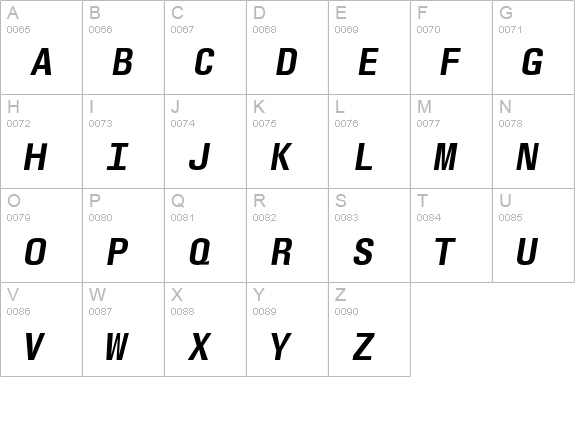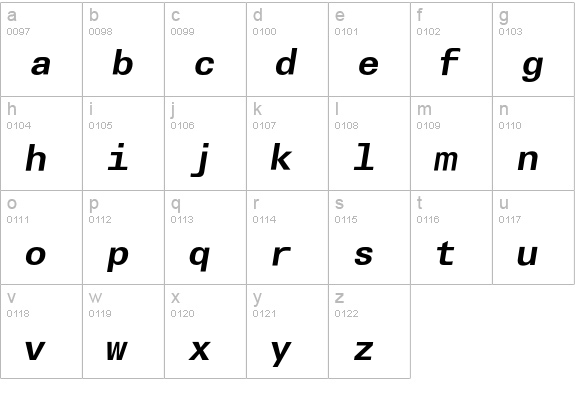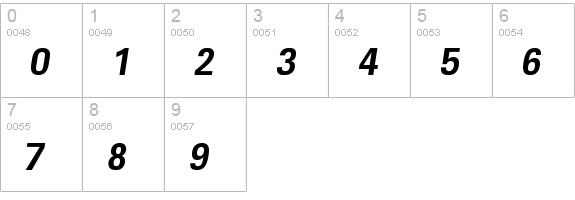
OlympiaEF-SemiBoldOblique Font Details
OlympiaEF-SemiBoldOblique font is a stylish and versatile typeface that combines elegance with a touch of modernity. Its semi-bold weight and oblique slant make it perfect for adding emphasis and flair to any design project. This font is ideal for headings, logos, posters, and other creative applications where a bold and distinctive look is desired. What makes OlympiaEF-SemiBoldOblique font even more appealing is that it is available for free download at FontsMarket.com. You can easily access this high-quality font and incorporate it into your designs without any cost. Don't miss out on the opportunity to enhance your projects with this eye-catching and unique typeface. Download OlympiaEF-SemiBoldOblique font today and take your designs to the next level!